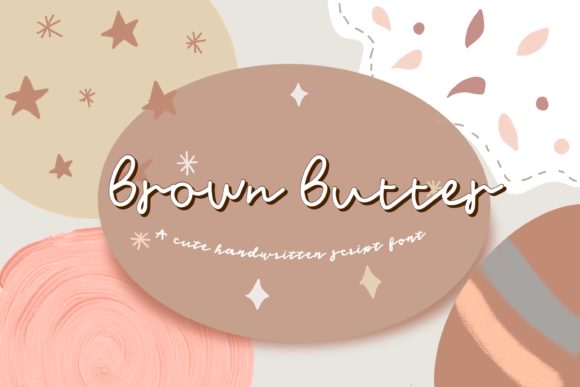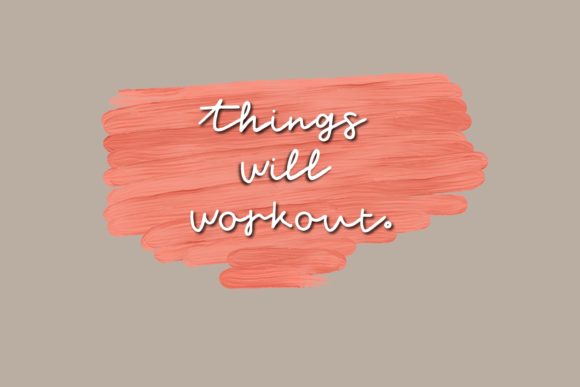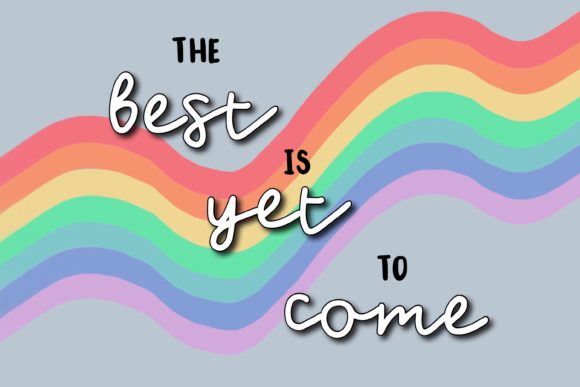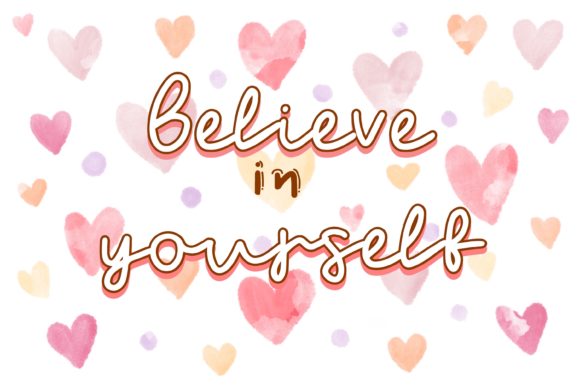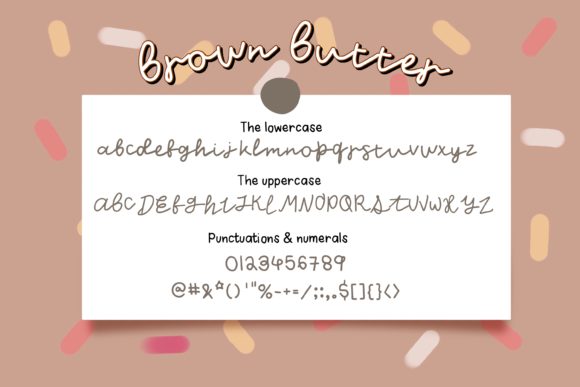
Brown Butter Font
About Brown Butter Font
Brown Butter embodies fun, quirkiness and authenticity. This enchanting handwritten font will turn any creative idea into a true standout.